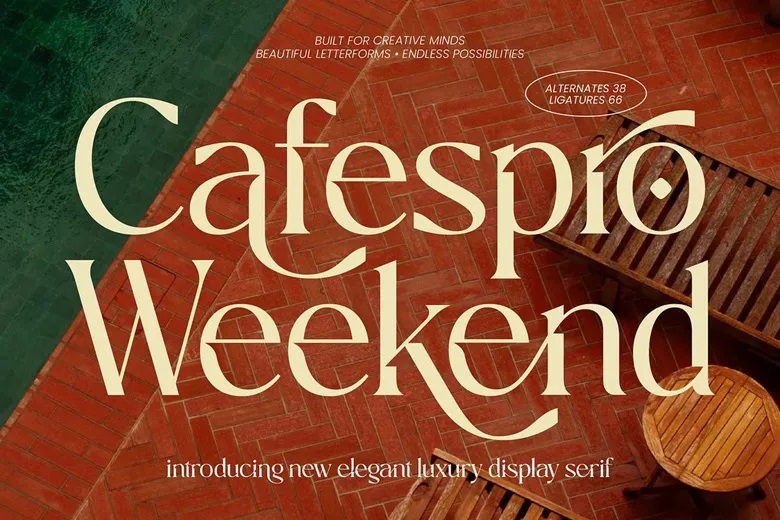
Cafespro Weekend Font
Cafespro Weekend is a luxury display serif font that adds sophistication, timeless beauty, and a premium editorial style to your work. Its high-contrast letterforms, graceful shapes, and unique details create a stylish and memorable look for your typography.
This typeface draws inspiration from luxury magazines, boutique brands, premium packaging, fashion campaigns, and modern editorial design. It makes headlines stand out.
Cafespro Weekend Serif Font